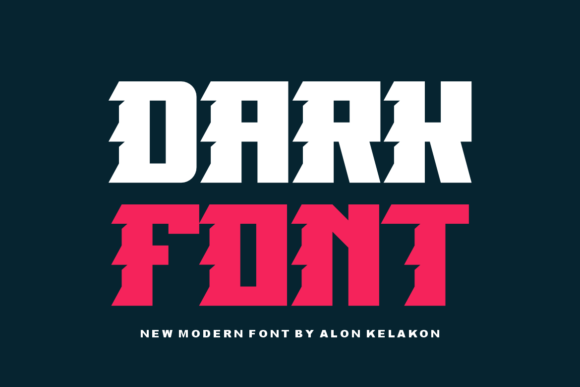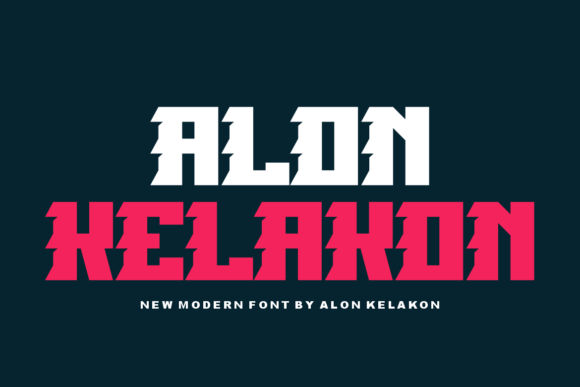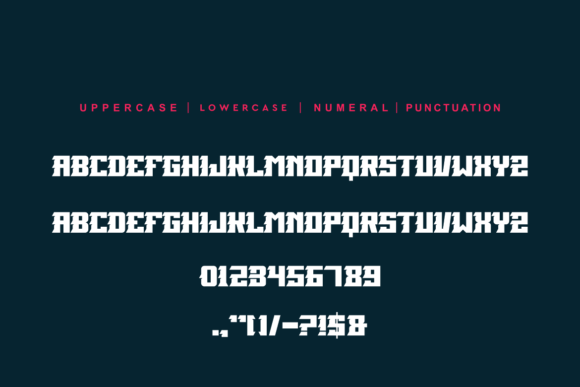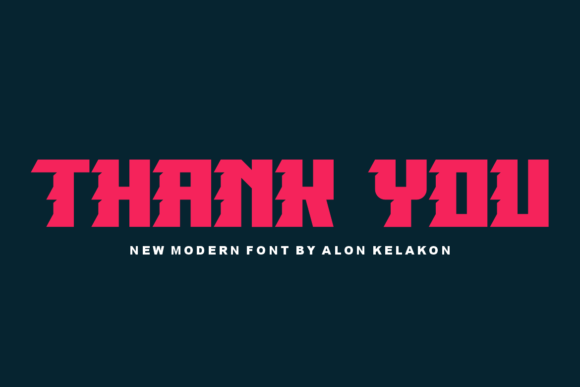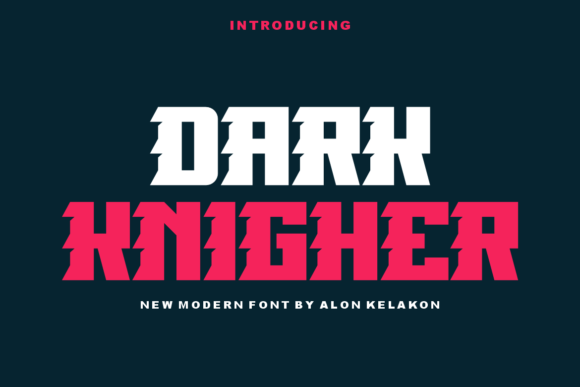
Unleash Your Creativity with Dark Knigher Font: A Modern Display Font
In the world of typography, fonts play a crucial role in conveying messages, expressing emotions, and creating visual identities. For designers, crafters, and creative enthusiasts, finding the right font can make all the difference in elevating their work from ordinary to extraordinary. If you’re on the hunt for a cool, modern, and incredibly interesting display font, look no further than Dark Knigher Font. This versatile and attention-grabbing font is sure to become an invaluable asset in your font library, capable of transforming any creation into a stunning masterpiece.
What Makes Dark Knigher Font Stand Out?
Dark Knigher Font boasts a unique blend of modernity and edginess, making it perfect for a wide range of design projects. Its distinctive characters are carefully crafted to add a touch of sophistication and drama to any text, ensuring that your message stands out from the crowd. Whether you’re working on a branding project, creating eye-catching posters, or designing engaging social media content, Dark Knigher Font is up to the task.
Key Features of Dark Knigher Font
• Modern and Edgy Design: Dark Knigher Font features a sleek and contemporary design that adds a touch of edginess to any project.
• High Versatility: This font is incredibly versatile and can be used for a wide range of design projects, from branding and advertising to packaging and digital media.
• Attention-Grabbing: With its bold and distinctive characters, Dark Knigher Font is sure to grab attention and make your message stand out.
• Ease of Use: Dark Knigher Font is easy to use and can be easily integrated into your design workflow.
Who Can Benefit from Dark Knigher Font?
Dark Knigher Font is a valuable resource for a wide range of designers and crafters, including:
• Graphic Designers: Looking for a modern and edgy font to add to their collection.
• Branding Experts: Seeking a unique and attention-grabbing font to help clients stand out.
• Digital Artists: Wanting to add a touch of drama and sophistication to their digital art.
• Crafters: Creating handmade products, such as cards, invitations, and DIY crafts.
How to Use Dark Knigher Font Effectively
To get the most out of Dark Knigher Font, here are some tips:
• Use it as a Headline Font: Dark Knigher Font is perfect for headlines and titles, where its bold and attention-grabbing design can shine.
• Experiment with Colors: Try pairing Dark Knigher Font with different colors to create striking contrasts and add visual interest.
• Mix and Match: Combine Dark Knigher Font with other fonts to create unique and visually appealing typography.
Font Name Dark Knigher Font
Author alonkelakon